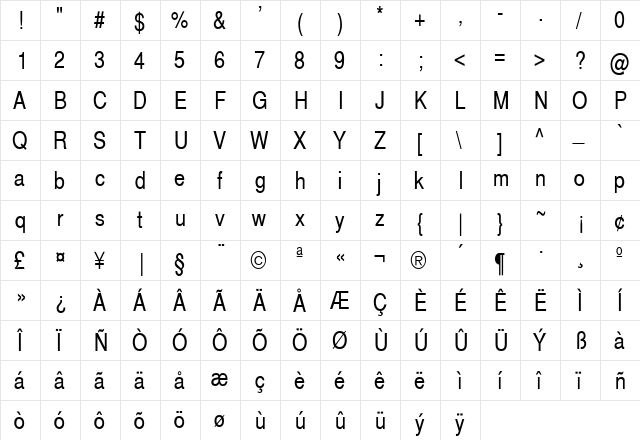
SwitzerlandNarrow Regular
Design Context for SwitzerlandNarrow Typeface
SwitzerlandNarrow is a composed and adaptable typeface that performs quietly and consistently across a wide range of design contexts. The condensed width makes it efficient for tight spaces without sacrificing legibility.